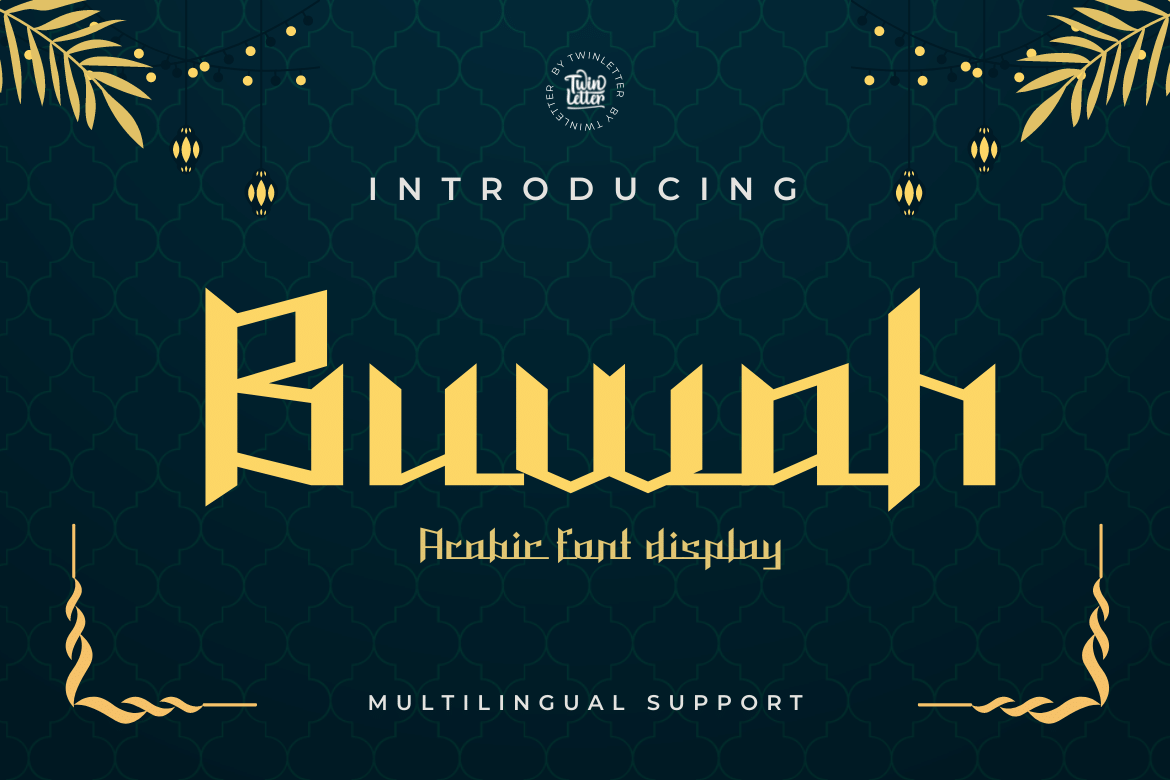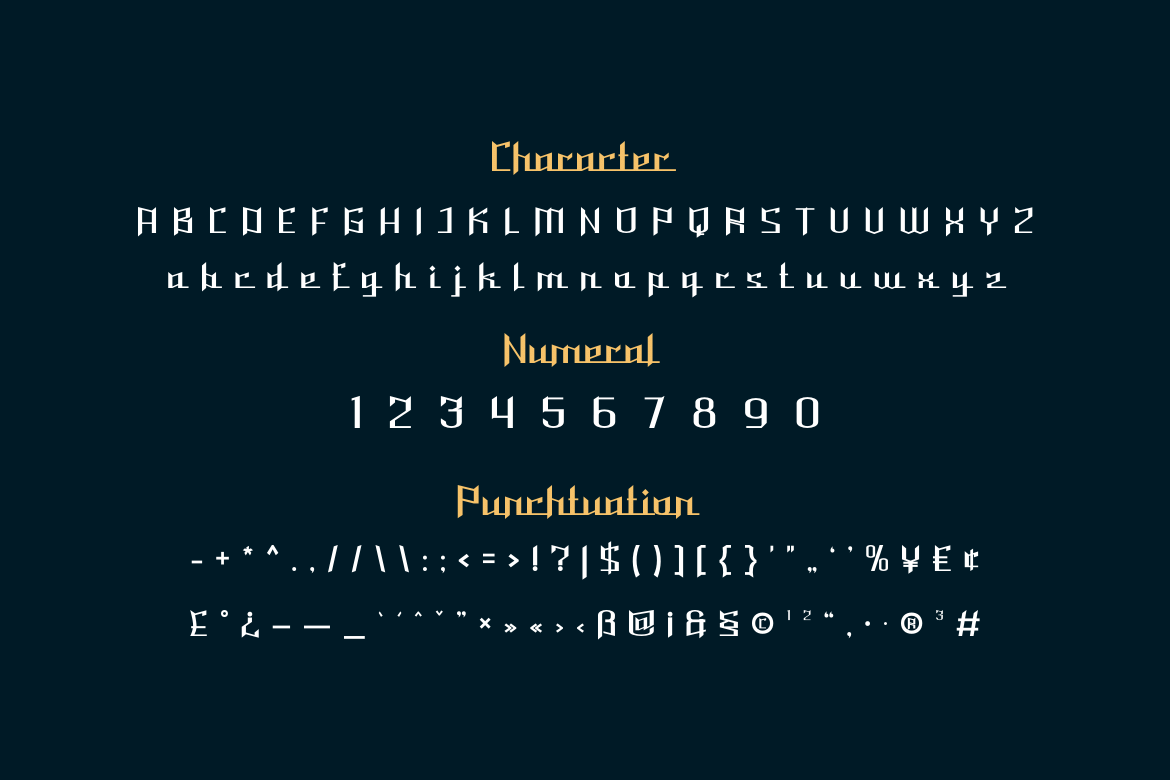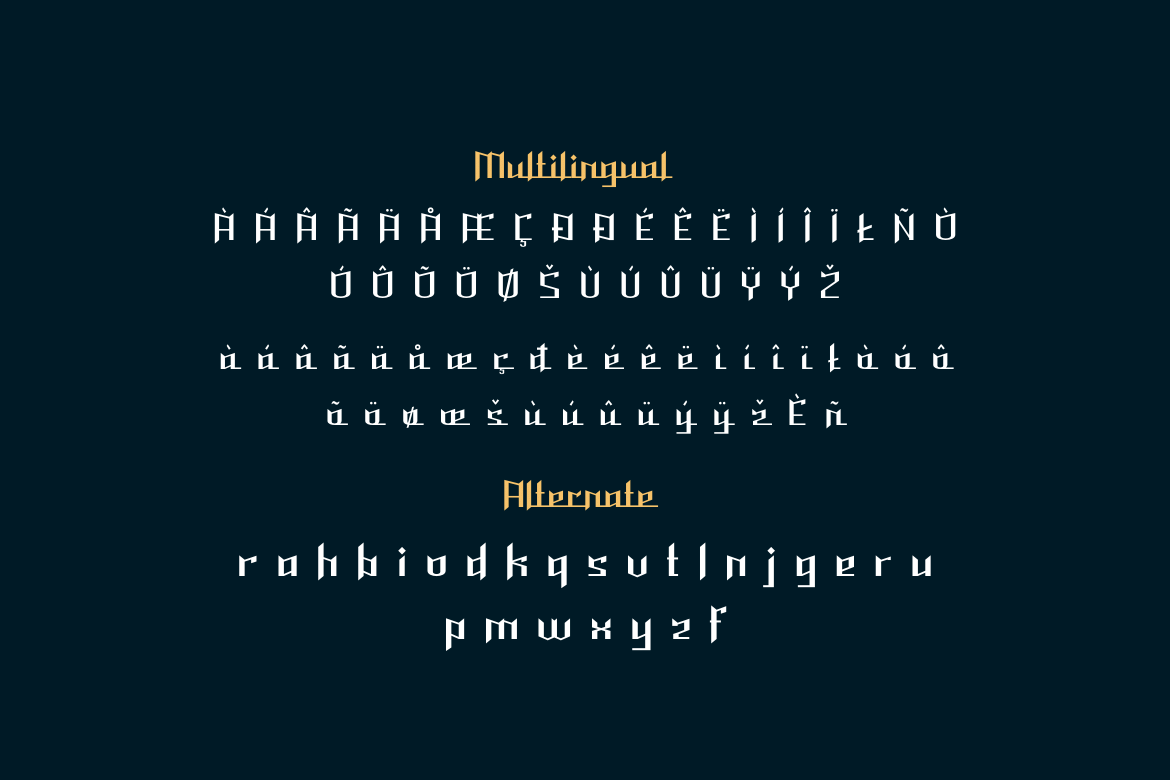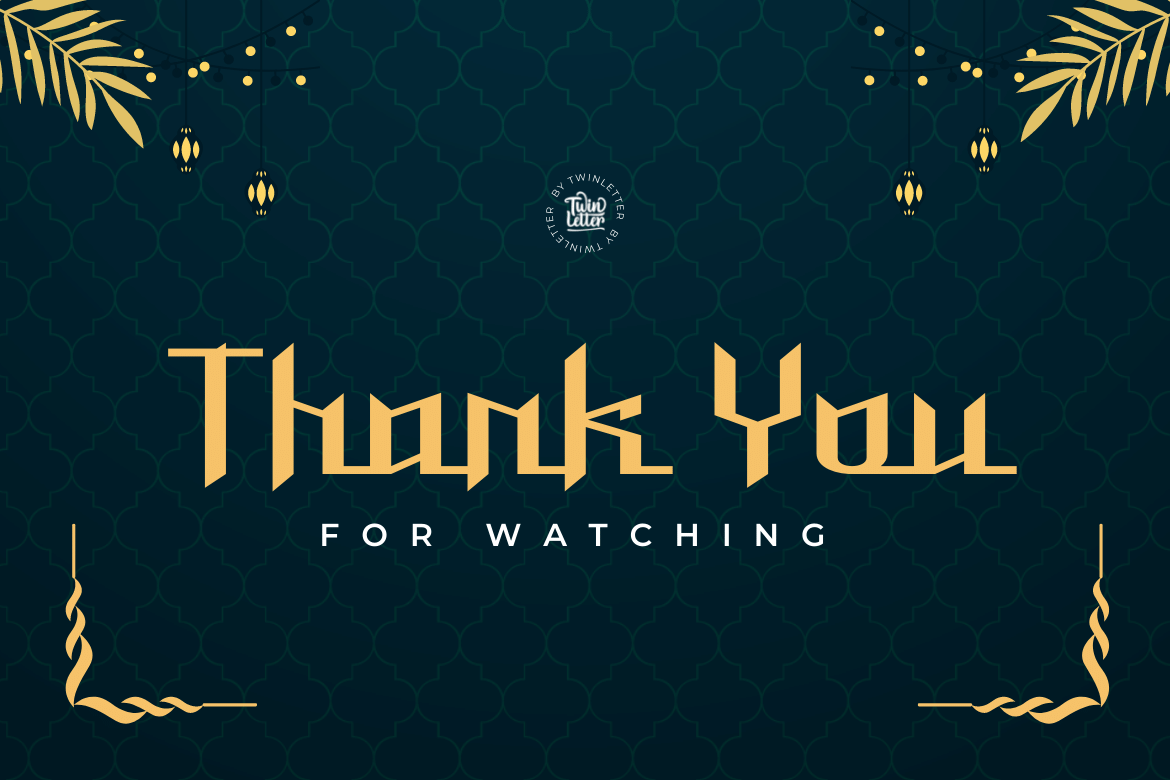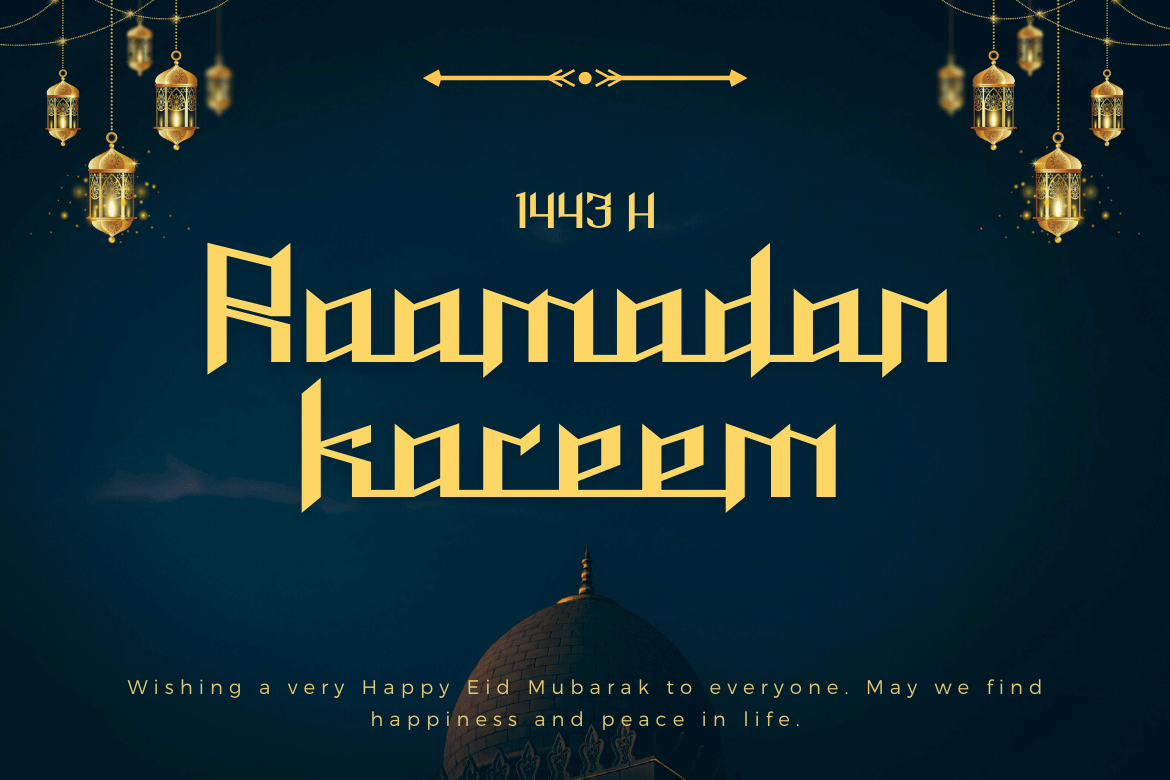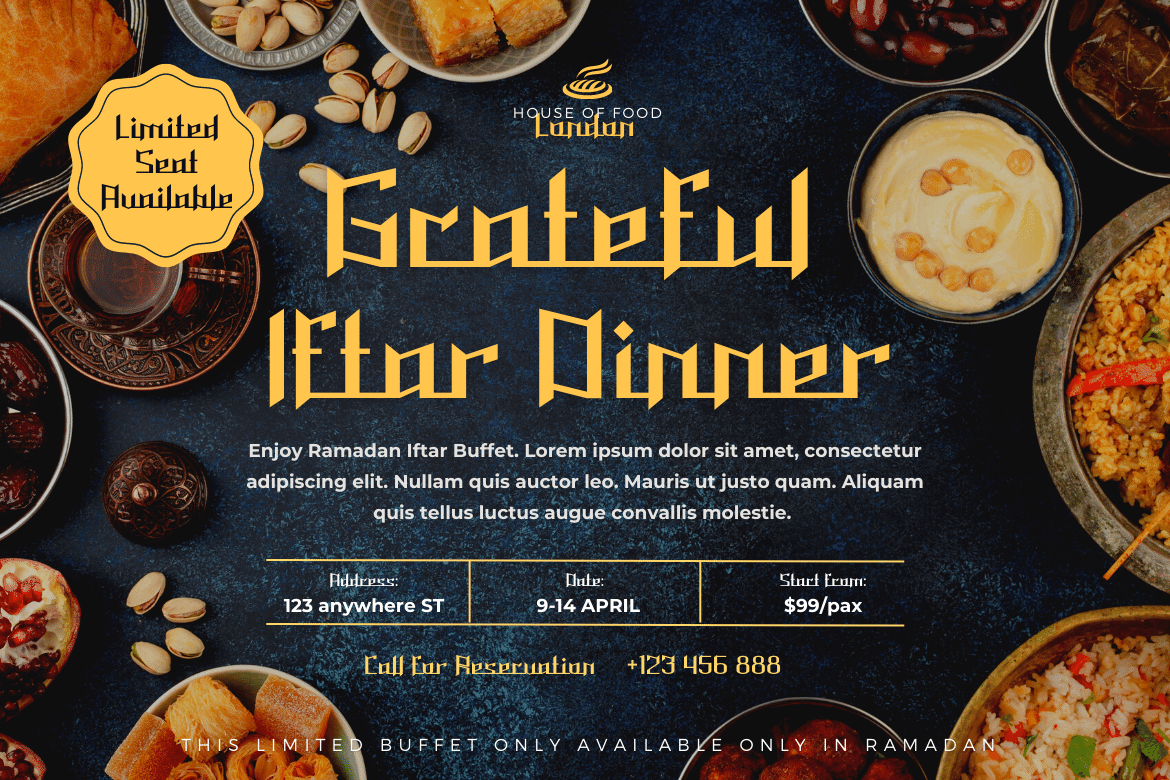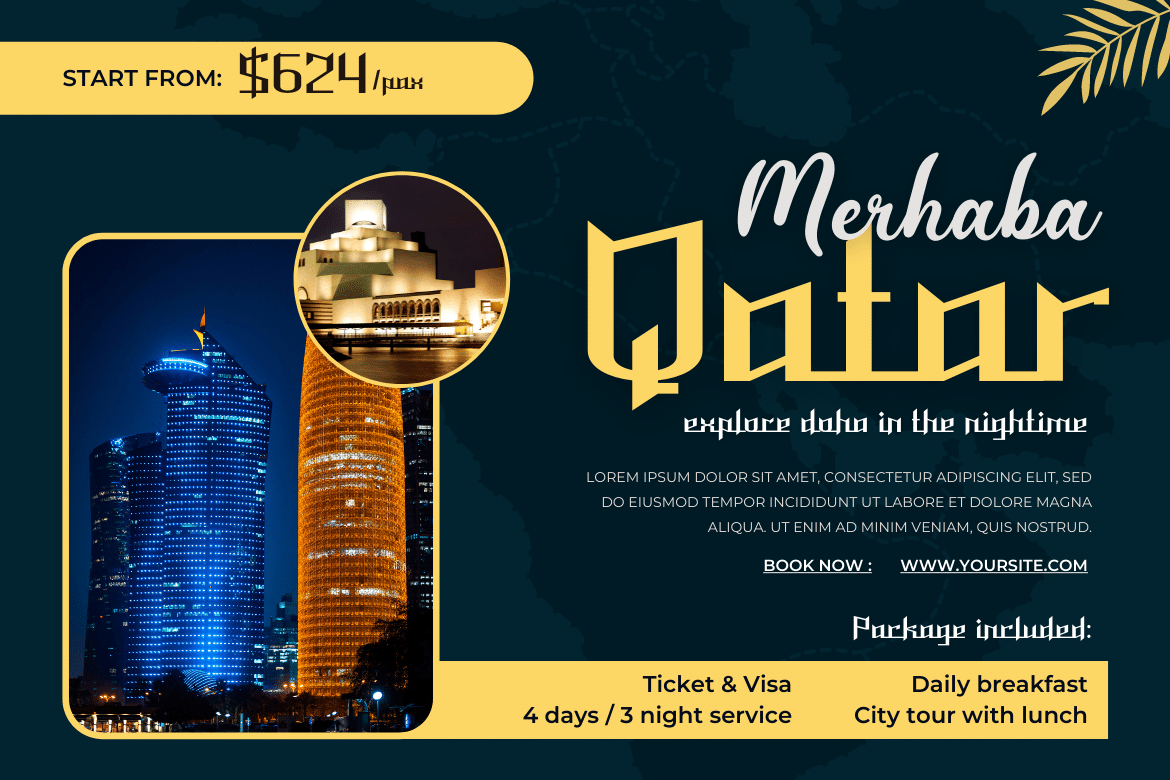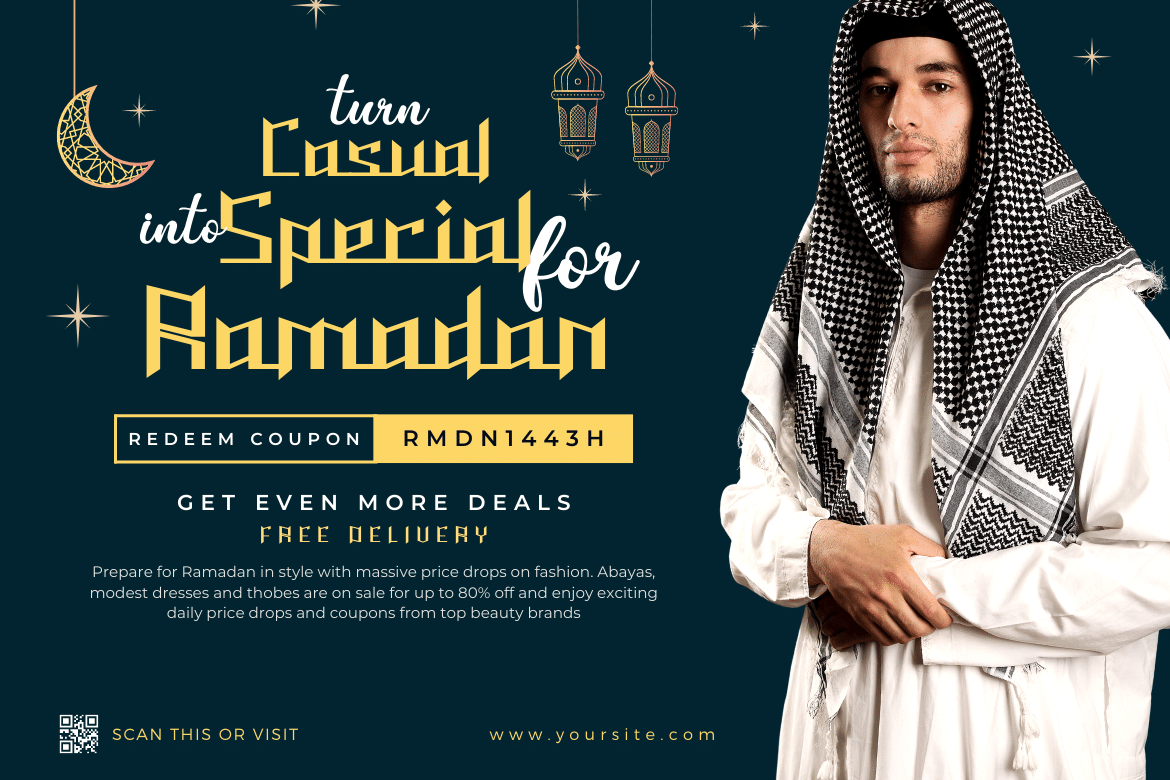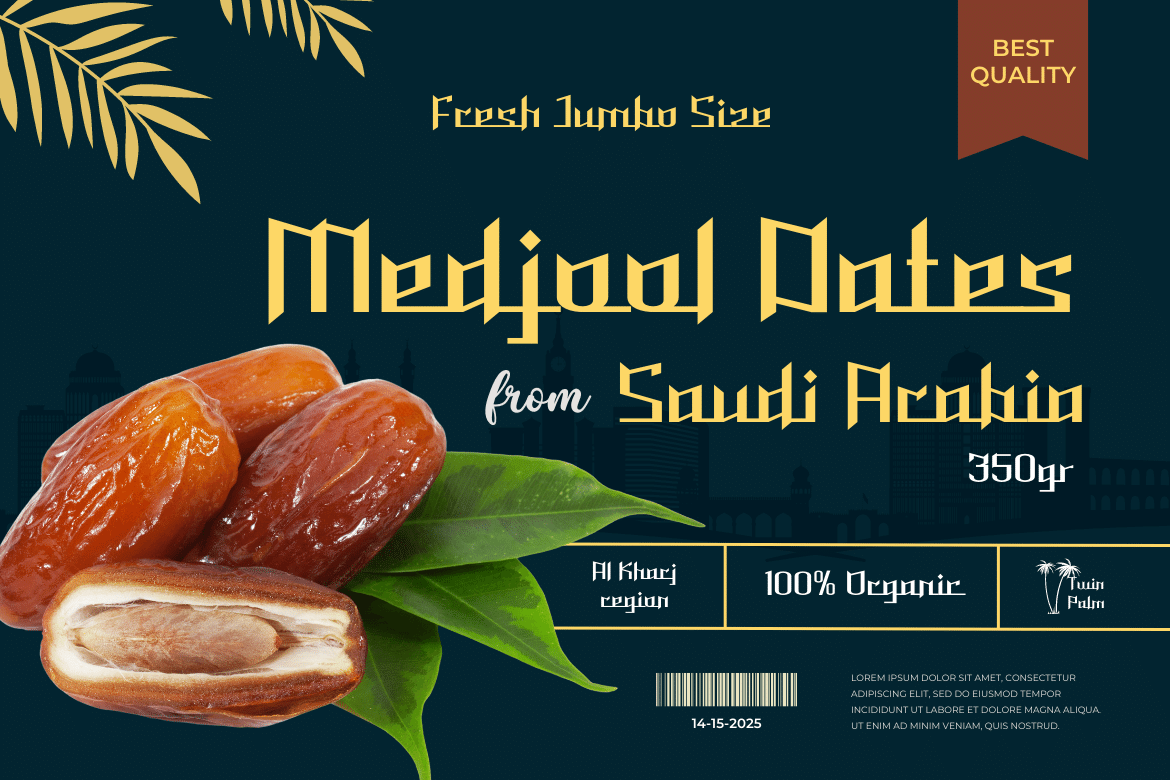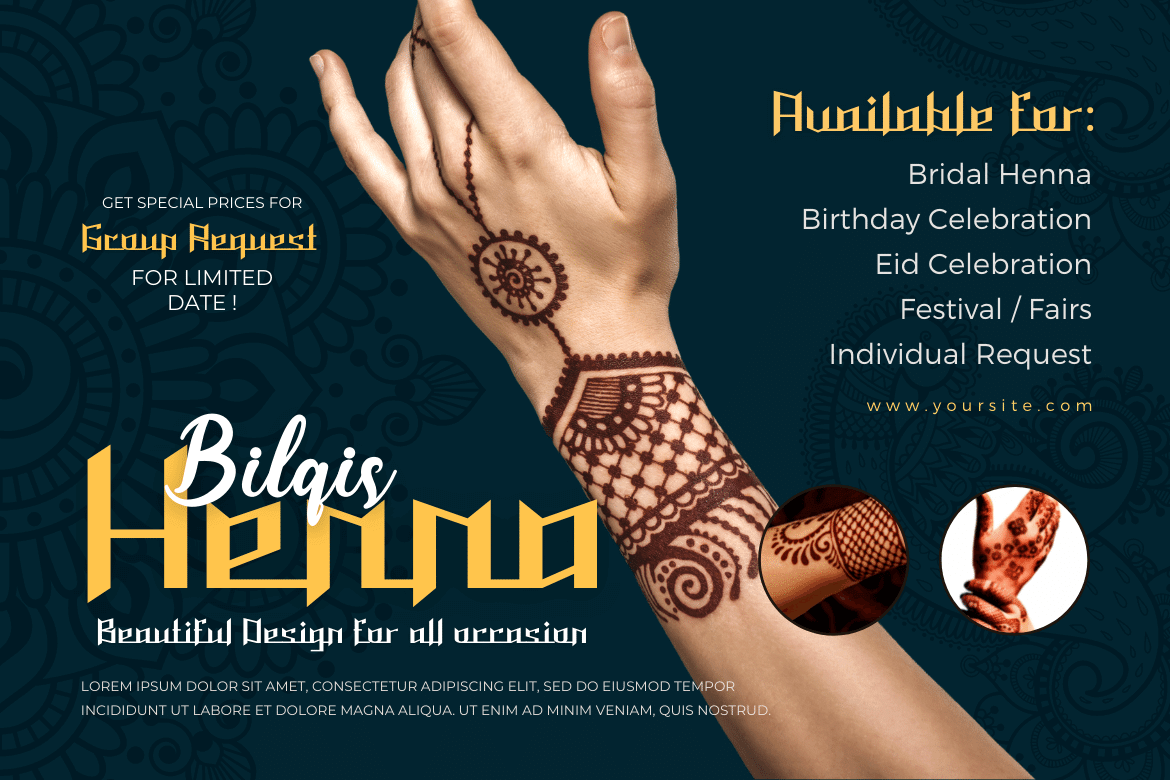
Buwah
Our Arabic style Buwah font is a modern and luxurious style to add a new dimension to your design projects. It’s ideal for magazine covers or packaging projects, or even business cards or logo designs. It’s also great for web designers looking to add something new to their portfolio or give their clients a unique experience.
• Fonts include multilingual support